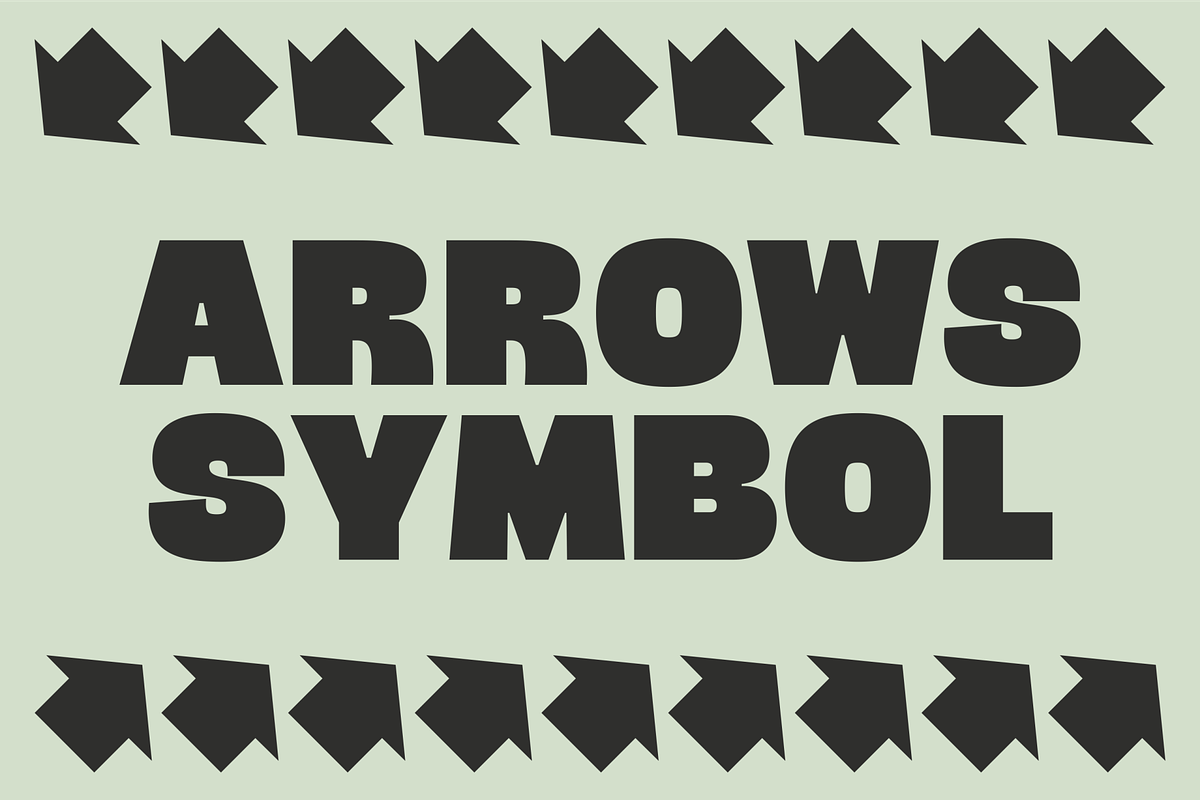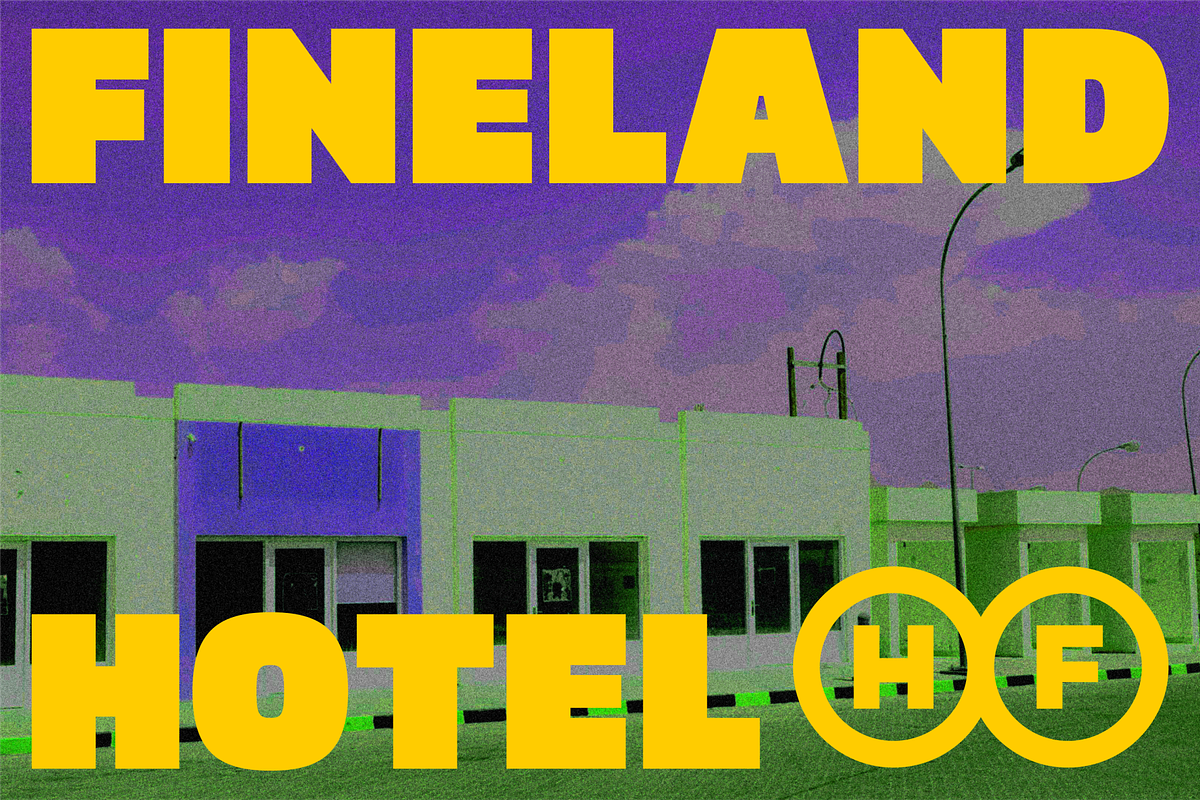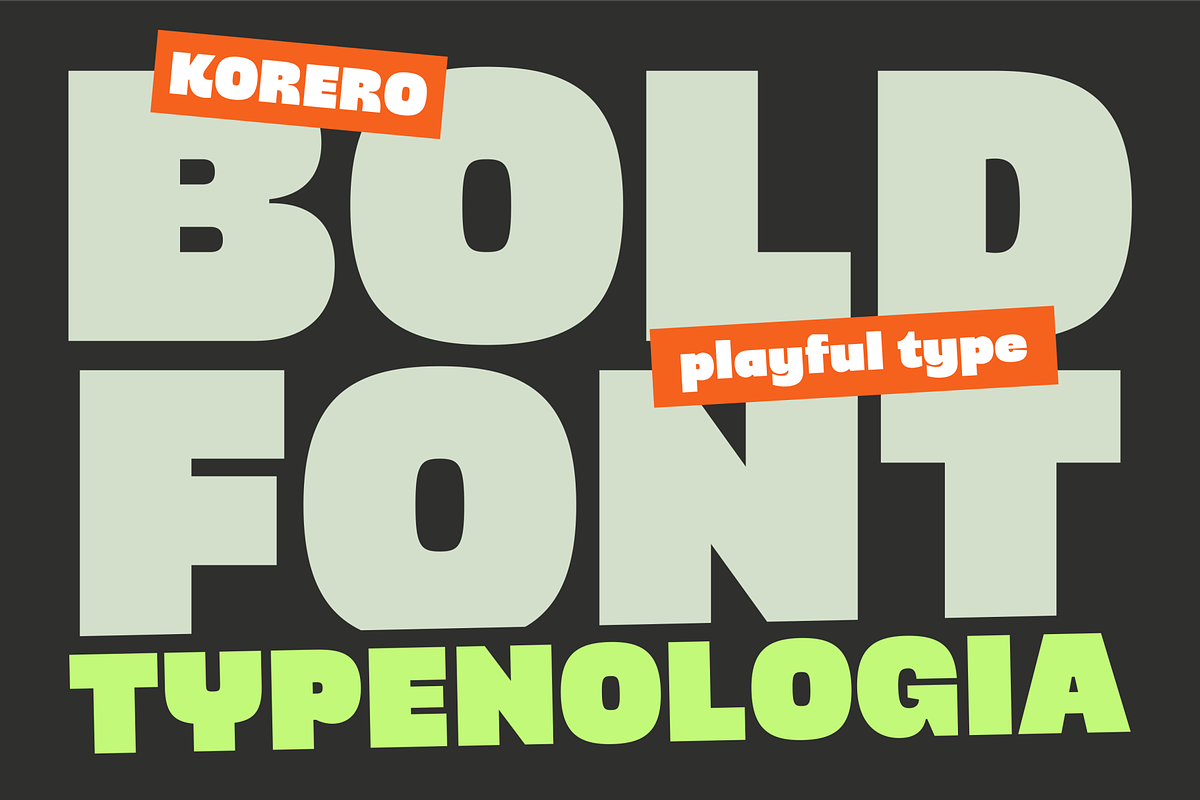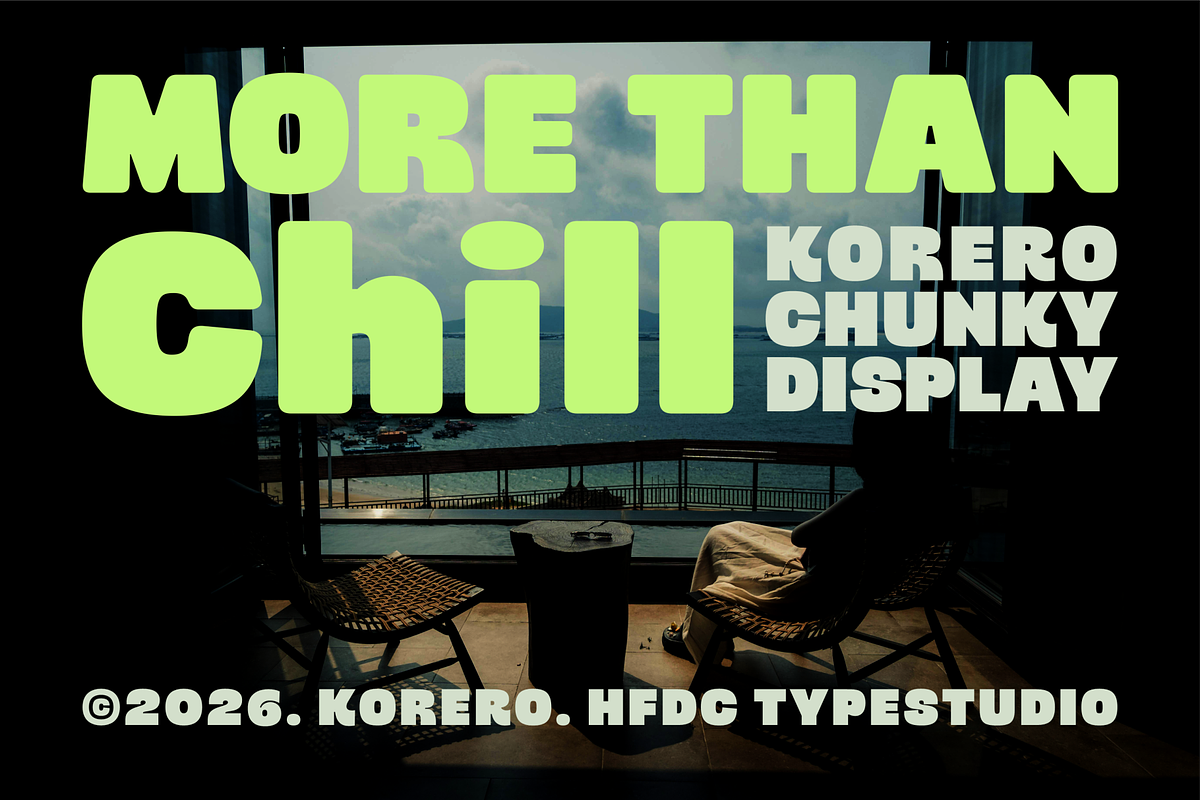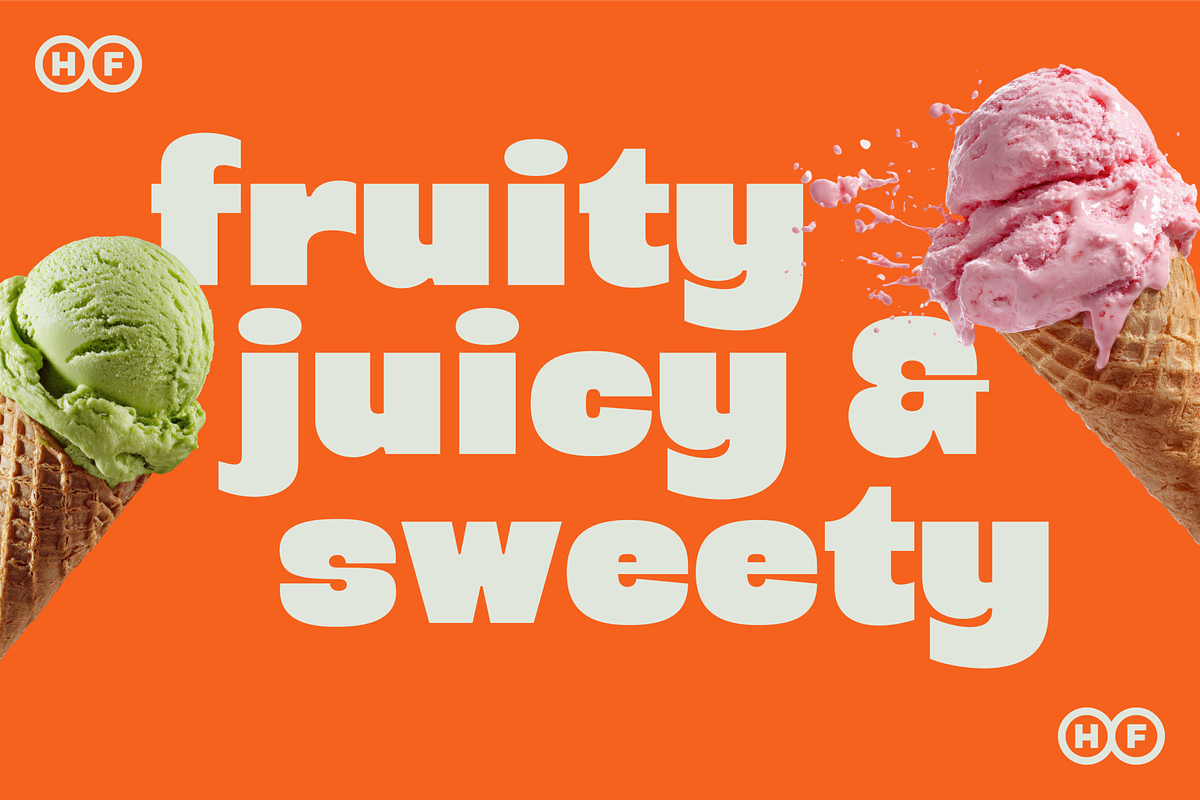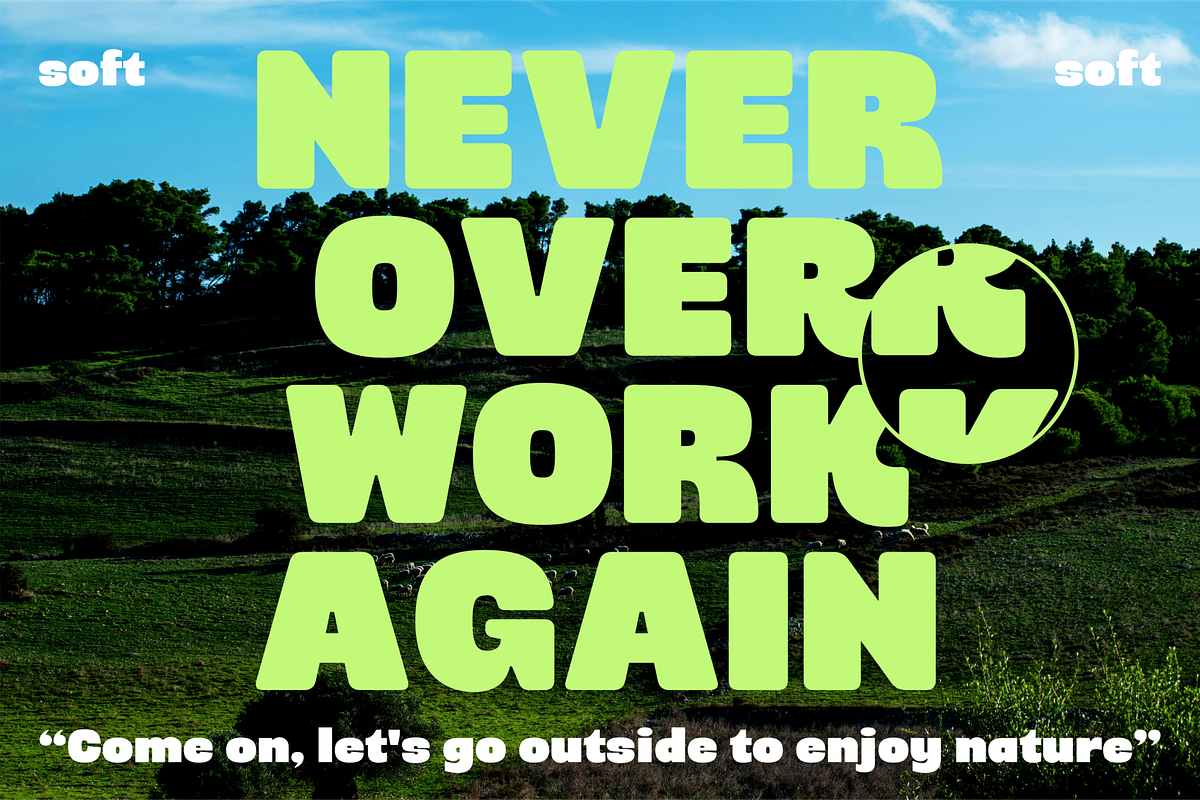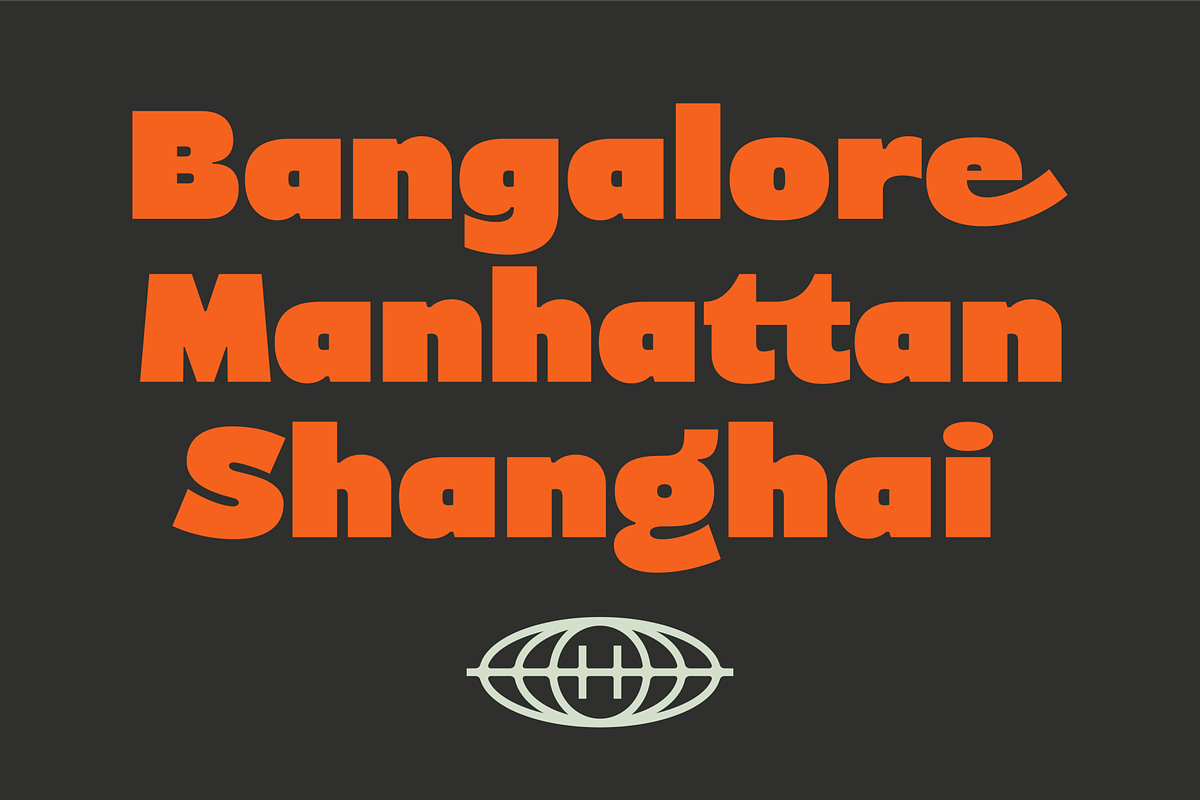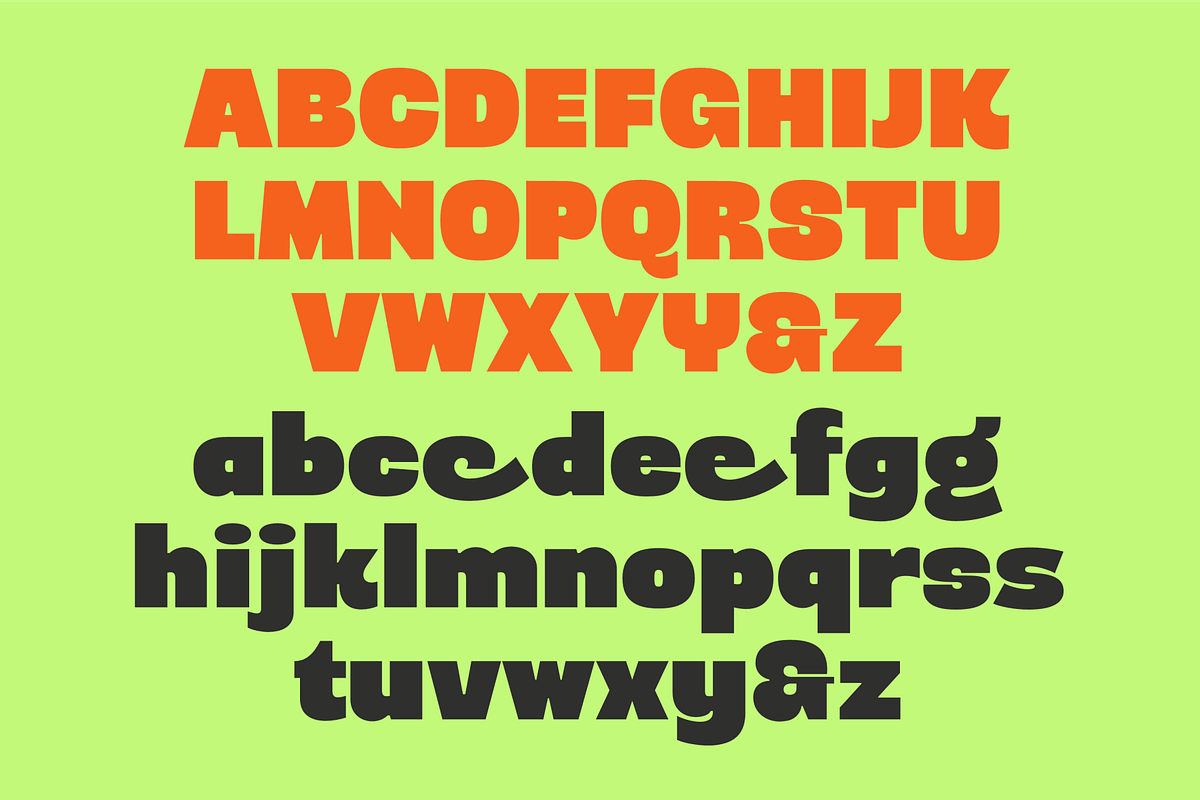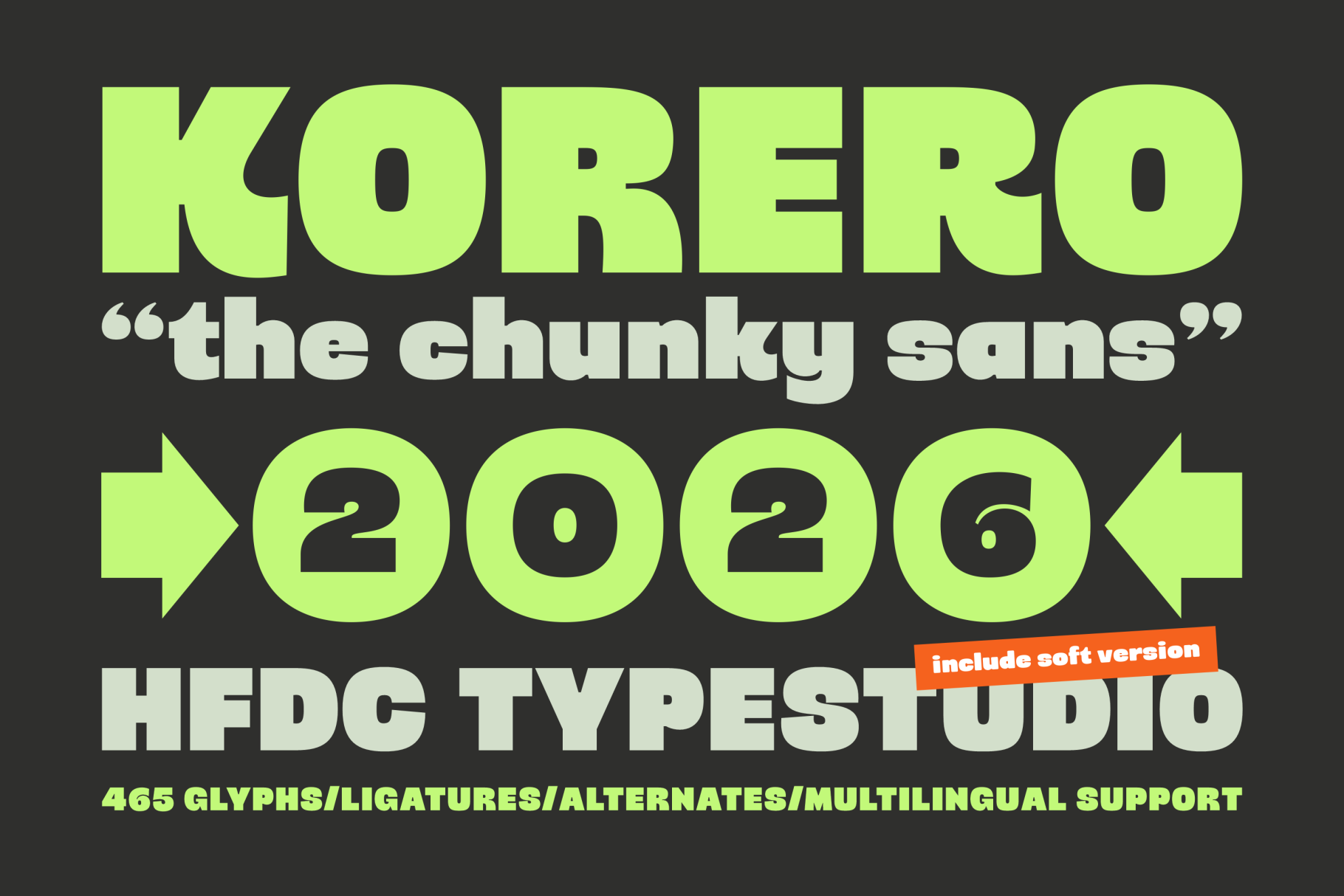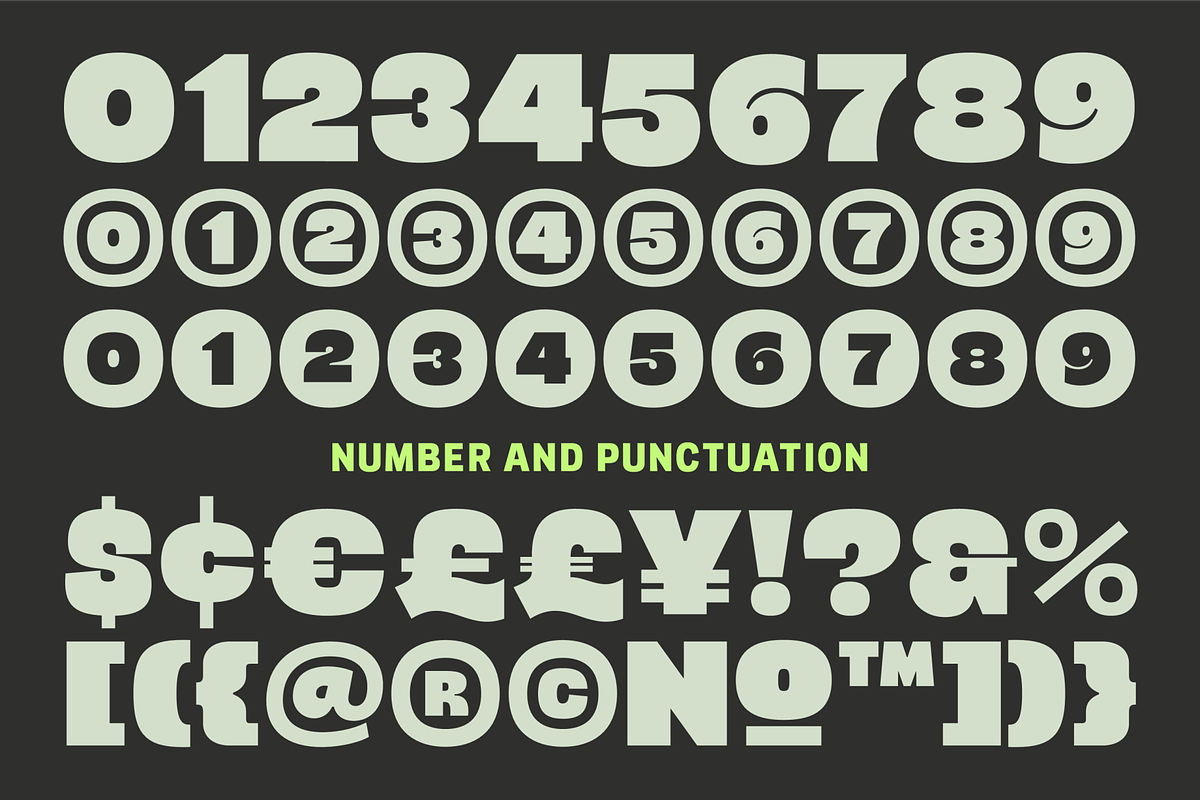
Korero HF Bold Display Font
Korero is a bold, display typeface built around thick strokes, tight letterforms, and a confident visual weight. The name draws from the Māori word for “to speak” or “to talk” — and visually, this font does exactly that: it speaks loudly and commands attention at any size.
The family ships in two styles:
Korero Regular carries sharp, squared-off terminals that give it an aggressive, unapologetic presence. Every letterform feels solid and architectural — like it was carved, not drawn. The high stroke weight with minimal internal spacing creates a dense, impactful texture that reads as powerful and direct. This is a font built for headlines, not body copy.
Korero Soft takes the same chunky skeleton but smooths and rounds every corner and terminal. The result is a version that retains all the visual mass and personality of Regular, but wraps it in a warmer, more approachable feeling. It’s expressive without being aggressive — playful without losing authority.
Because of their strong visual weight and personality, fonts in this style excel in contexts where character and impact matter more than readability at length:
Branding & Identity — Logos, wordmarks, and brand names where the font itself becomes part of the brand’s personality. Both styles work well here depending on tone: Regular for edgy/premium, Soft for friendly/youth-oriented.
Streetwear & Apparel — T-shirts, caps, hoodies, and merchandise where the typography needs to hold up as a graphic element on its own.
Gaming & Esports — Game titles, team names, UI headers, and tournament graphics where power and presence are essential.
Sports & Athletics — Jersey names, team branding, posters, and event collateral that need high visual energy.
Poster & Event Design — Concert posters, festival branding, movie titles, and promotional graphics where the type anchors the entire composition.
Food & Beverage Packaging — Labels, cans, and packaging that want to project bold character on a shelf. Soft works particularly well for craft/artisan products.
Children’s Media & Education — The Soft variant especially works well for kids’ books, apps, and characters where rounded forms feel safe and fun.
Social Media & Digital Content — Thumbnails, cover images, and graphic overlays where the font needs to pop at small sizes and short reading distances.
Numbers + Number Alternates
Punctuation — standard punctuation and symbols
Alternates — alternative characters via OpenType
Ligatures — standard & discretionary